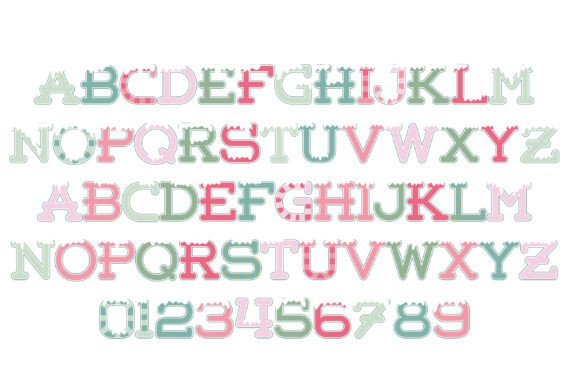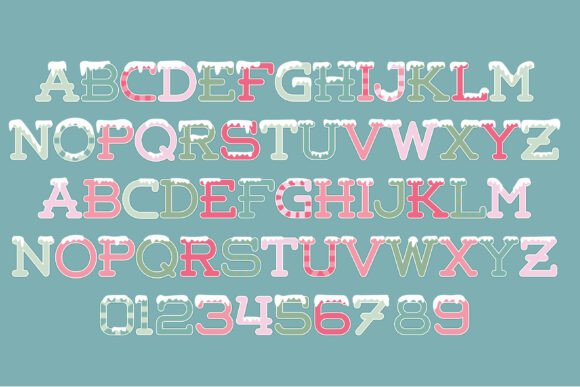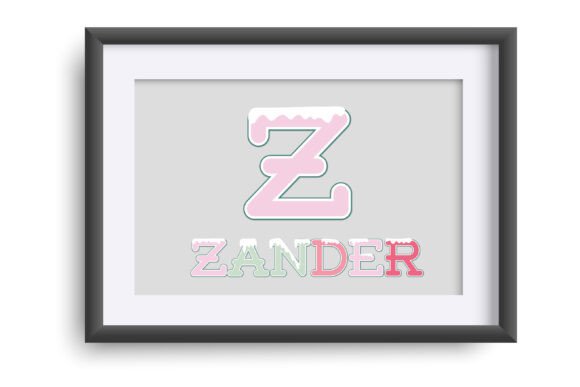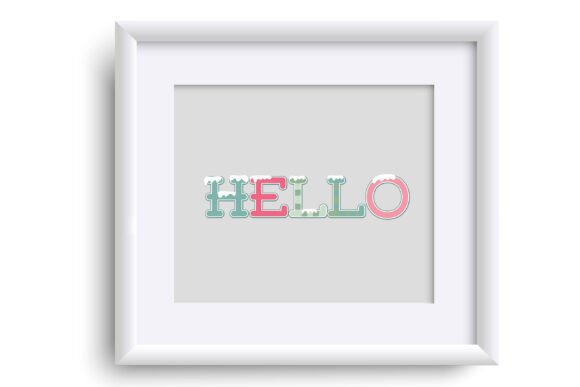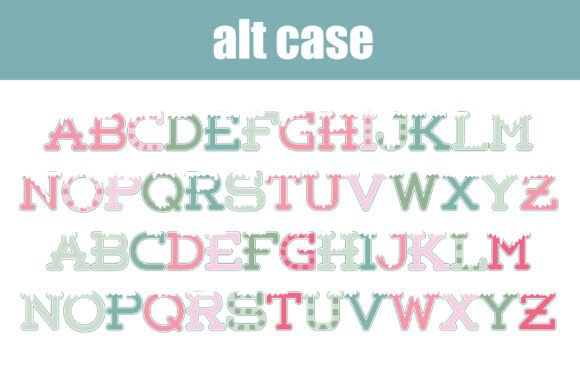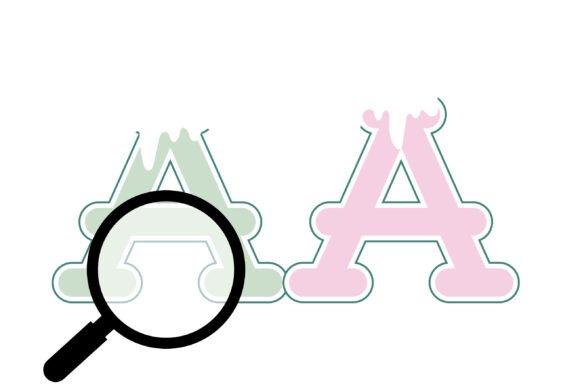
Introduction to Christmas Yet Font
As you sit at your desk, surrounded by scraps of paper and half-finished designs, the excitement of a new creative project begins to take shape. You’ve been searching for the perfect font to give your holiday design a unique touch, and today, we’re excited to introduce you to the Christmas Yet Font – a high-quality, full-color font that’s sure to make your project stand out.
With its hipster serif design and Christmas color palette covered in snow, this font is a design resource like no other. Whether you’re working on a festive title, a poster, or a display, the Christmas Yet Font is the perfect addition to your creative toolbox. And, with its transparent background, you can easily layer your design on top of any background – the possibilities are endless!
As a designer, you know how valuable a great font can be. That’s why we’re thrilled to offer the Christmas Yet Font as a free download, complete with an alt version that unlocks even more color options. With its compatibility with popular design programs like Adobe and Silhouette Studio, you can be sure that this font will be a valuable asset in your design arsenal.
Key Features of Christmas Yet Font
- High-quality design with transparent background, perfect for creative projects.
- Includes a range of festive characters, including ornaments, borders, and holiday-themed icons.
- Designed with a unique, modern aesthetic, making it perfect for contemporary creative projects.
Honest Review: Christmas Yet Font
I recently stumbled upon the Christmas Yet Font and I must say, it’s been a great addition to my design resource collection. This font is perfect for any creative project that needs a touch of festive charm.
Here are some things that work well with this font: ✨
- High-quality design: The font looks crisp and clear, making it ideal for printing and digital use.
- Transparent background: This feature allows for easy integration with any design element, giving you more flexibility in your creative project.
However, I did encounter some limitations: ⚠️
- Limited character set: The font only includes a limited set of characters, which may not be suitable for longer text-based designs.
- Not suitable for bold text: The font’s design doesn’t lend itself well to bold text, which can make it difficult to read.
Overall, the Christmas Yet Font is a great addition to any design resource collection. While it may have some limitations, its high-quality design and transparent background make it a valuable asset for any creative project.
For the best results, use the Christmas Yet Font on a high-quality design resource. Consider using a transparent background to make your design stand out. This font is perfect for creative projects, such as holiday cards, posters, or social media graphics.
The Christmas Yet Font is ideal for various holiday-themed projects, including Christmas cards, gift tags, and social media posts. Its unique design and transparent background make it a great addition to any creative project.